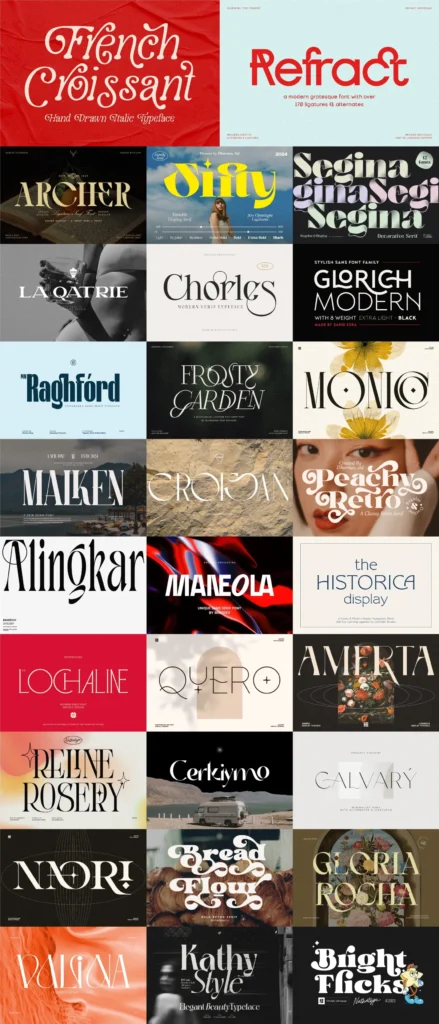
The Essential Ligature Typeface Collection
is a must-have font bundle for the discerning graphic designer.
This curated bundle boasts 29 impressive typefaces in a diverse range of styles. You’ll get everything from traditional serifs to clean modern sans-serifs, all packed with brilliant custom ligatures and alternate characters to make your designs stand out.
Whether you’re creating logos, branding materials, marketing content or packaging designs, you’ll find the perfect typeface to share your message – with a little added style.